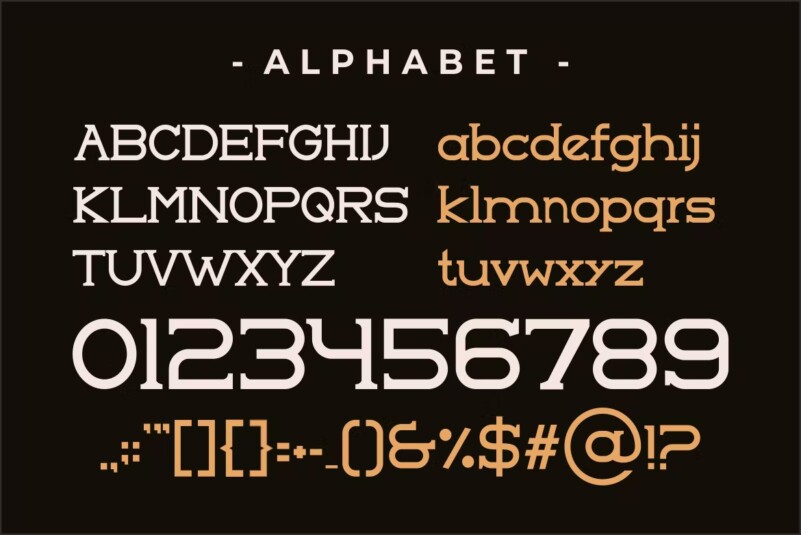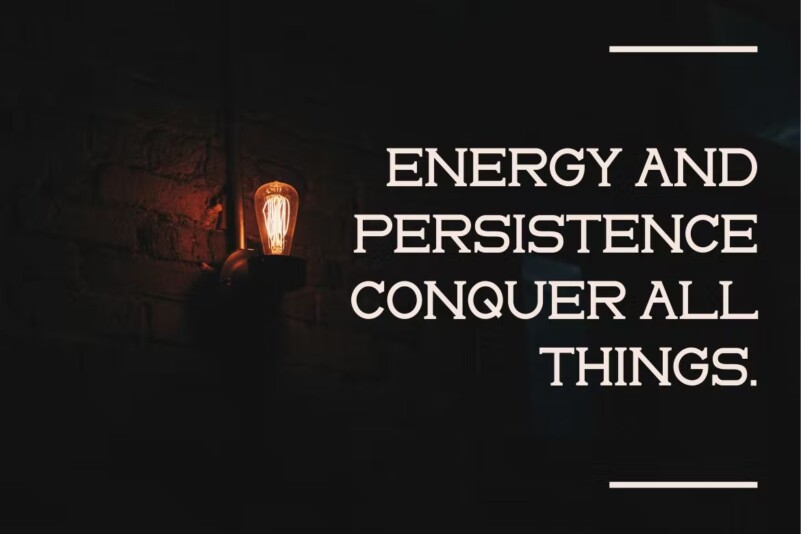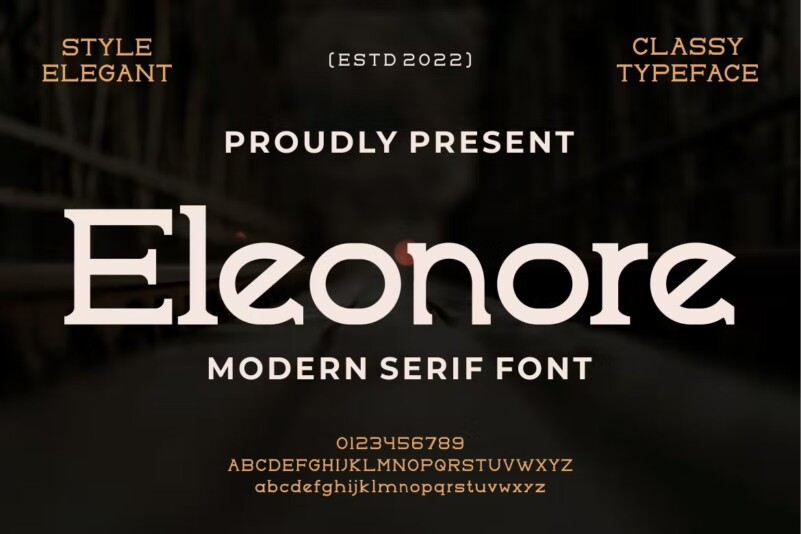
Eleonore Font
Eleonore Font – Modern Font is a bold and authentic display font. The font is suitable for any branding project like logo, t-shirt printing, esport, and many more. outstanding in a wide range of contexts.